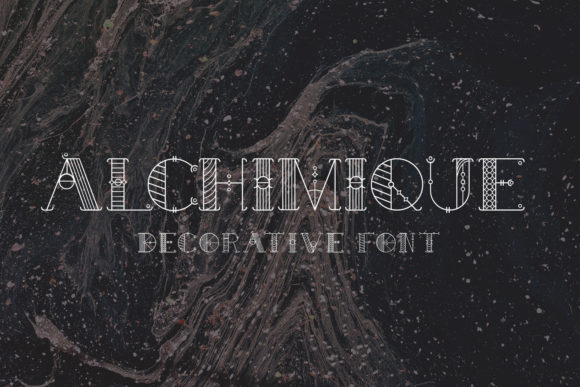
Behold Alchimique, the captivating display font crafted by Craft-N-Cuts, ready to cast a spell of elegance and charm on your designs. This is not just a font; it's an enchanting elixir that transforms words into art, captivating your audience with its distinctive style.
Alchimique's allure lies in its seamless blend of classicism and boldness, making it the ideal choice for those seeking to create a lasting impression. Its carefully crafted characters exude a sense of sophistication that commands attention, while its innate boldness ensures your message stands out from the mundane.
With Alchimique, you have the power to transform ordinary text into captivating headlines, enchanting logos, and mesmerizing social media posts. Its versatility extends beyond the digital realm, allowing you to create stunning print materials that leave a lasting impact. Let Alchimique be your muse as you craft business cards that exude professionalism, brochures that captivate clients, and posters that command attention from across the room.
But Alchimique's magic doesn't stop there. Its unique flavor adds a touch of whimsy and playfulness to your creations. Whether you're designing invitations for a special event, greeting cards to spread joy, or packaging that sparks curiosity, Alchimique will infuse your work with a captivating charm that leaves a lasting impression.
Dare to embrace the power of Alchimique and unlock a world of creative possibilities. Its bold lines and elegant curves will infuse your designs with a touch of luxury and sophistication, making them irresistible to your audience. Experience the alchemy of design as you witness your words transform into works of art, captivating hearts and igniting imaginations.